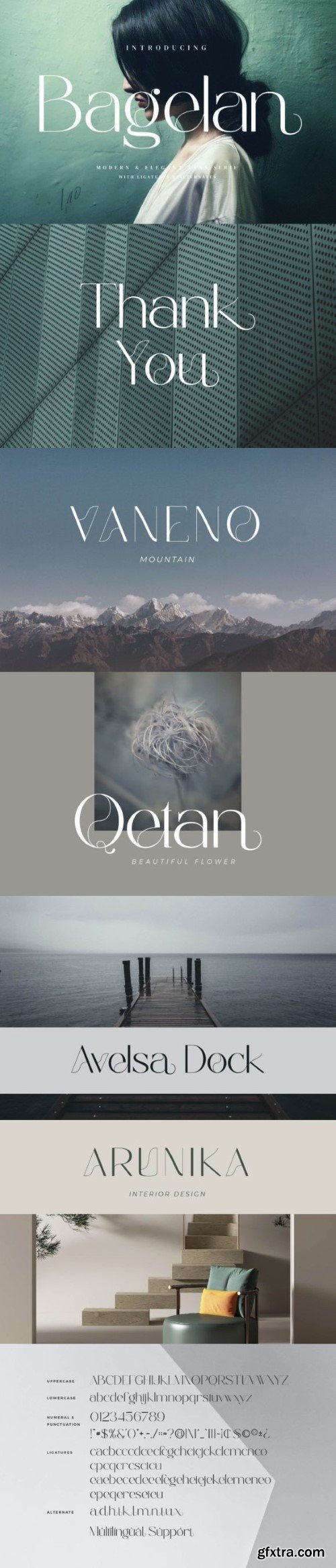
巴甘兰字体
Bagelan Sans Font Typeface inspired by the famous minimalist logo perfect for the purposes of designing templates, brochures, videos, advertising branding, logos, invitation, layout design, elegant crafting, beauty design and other.